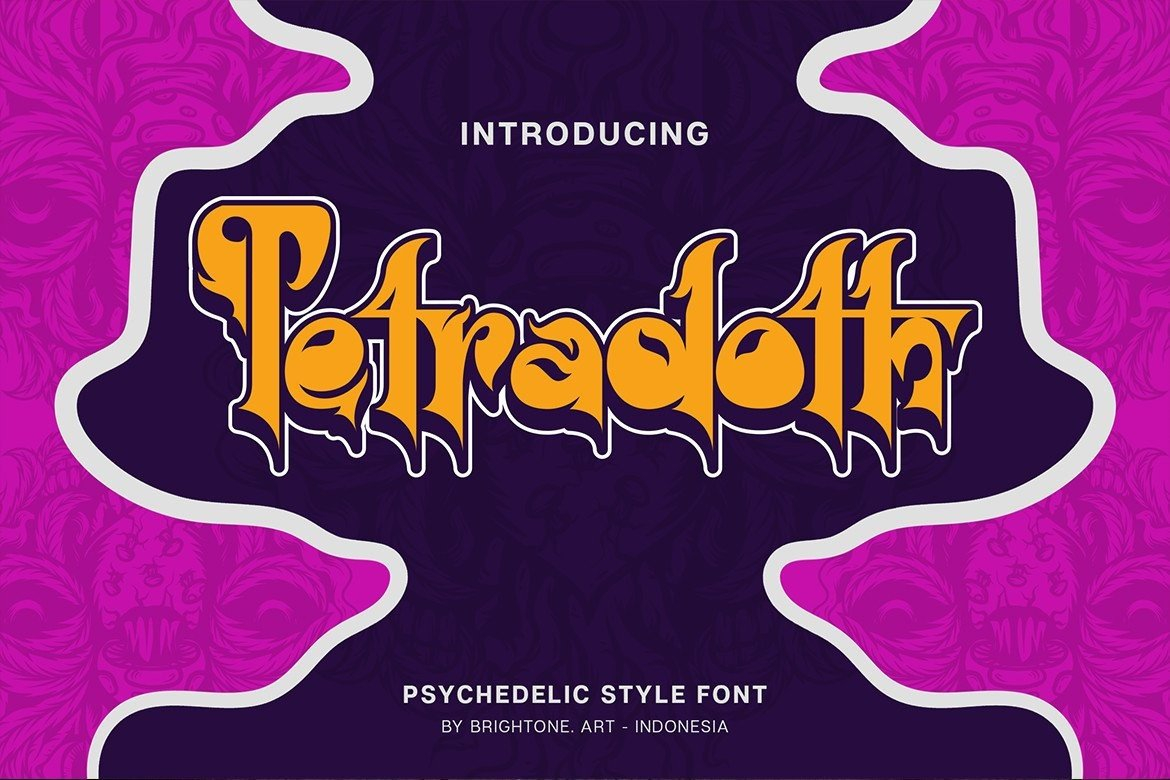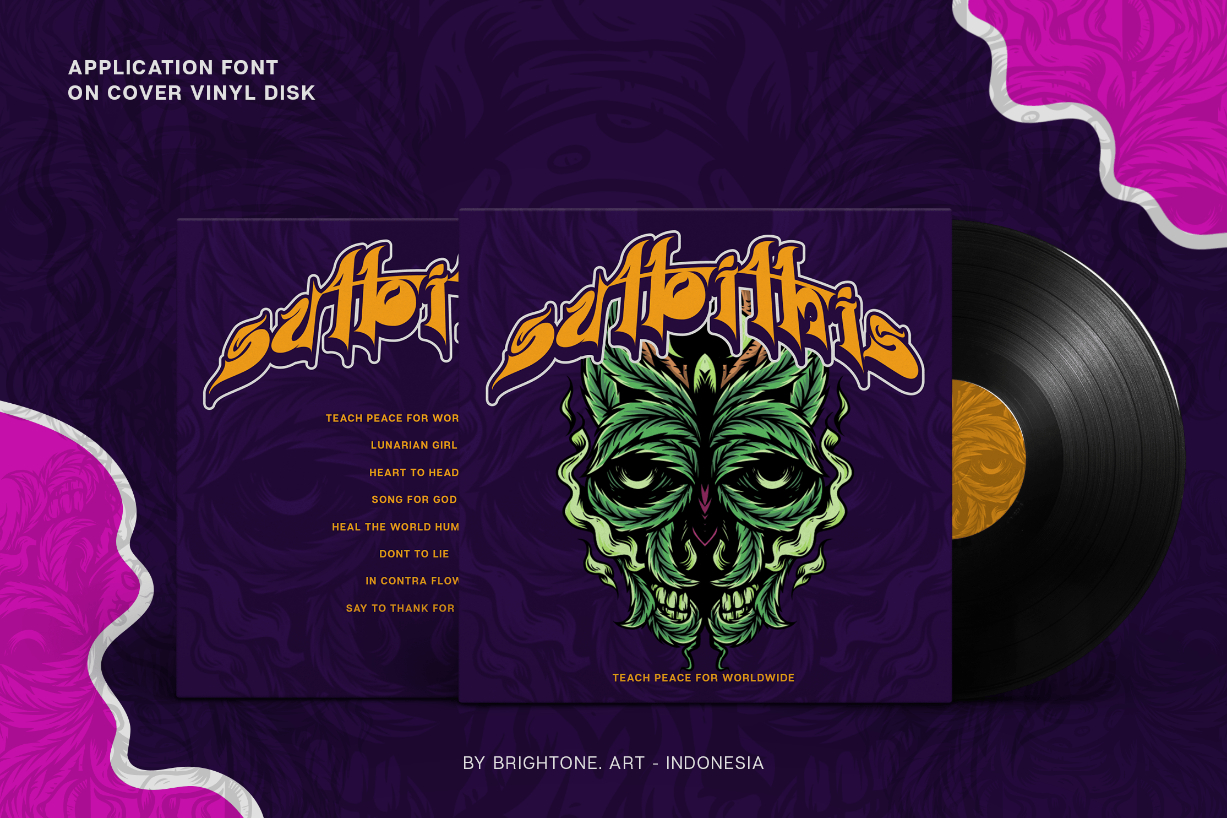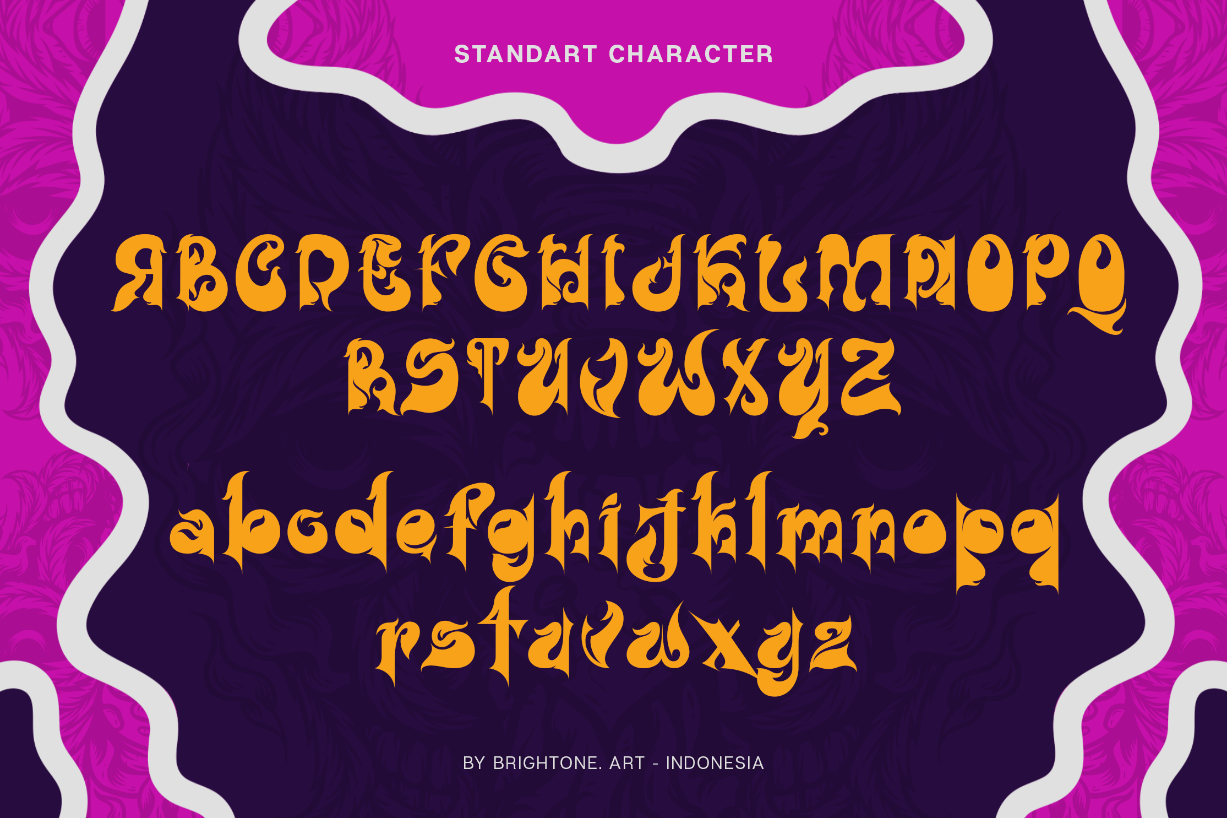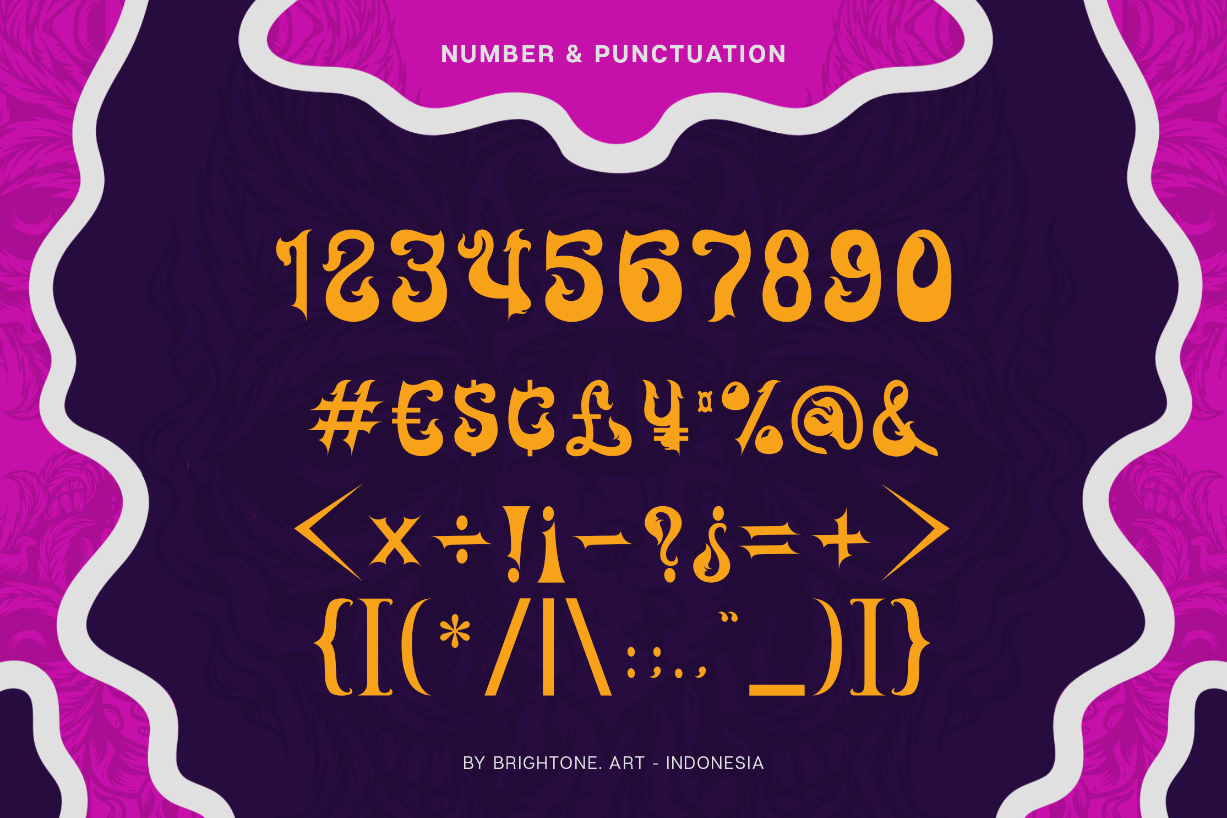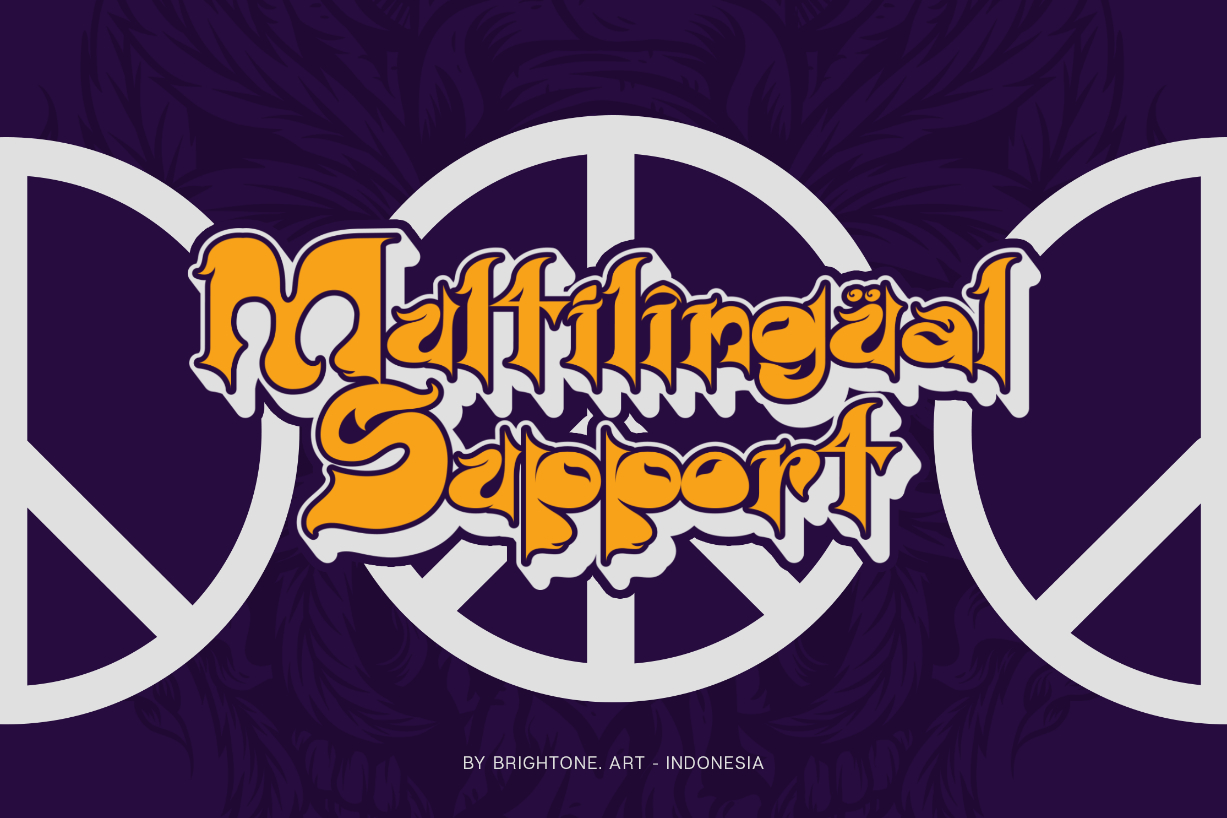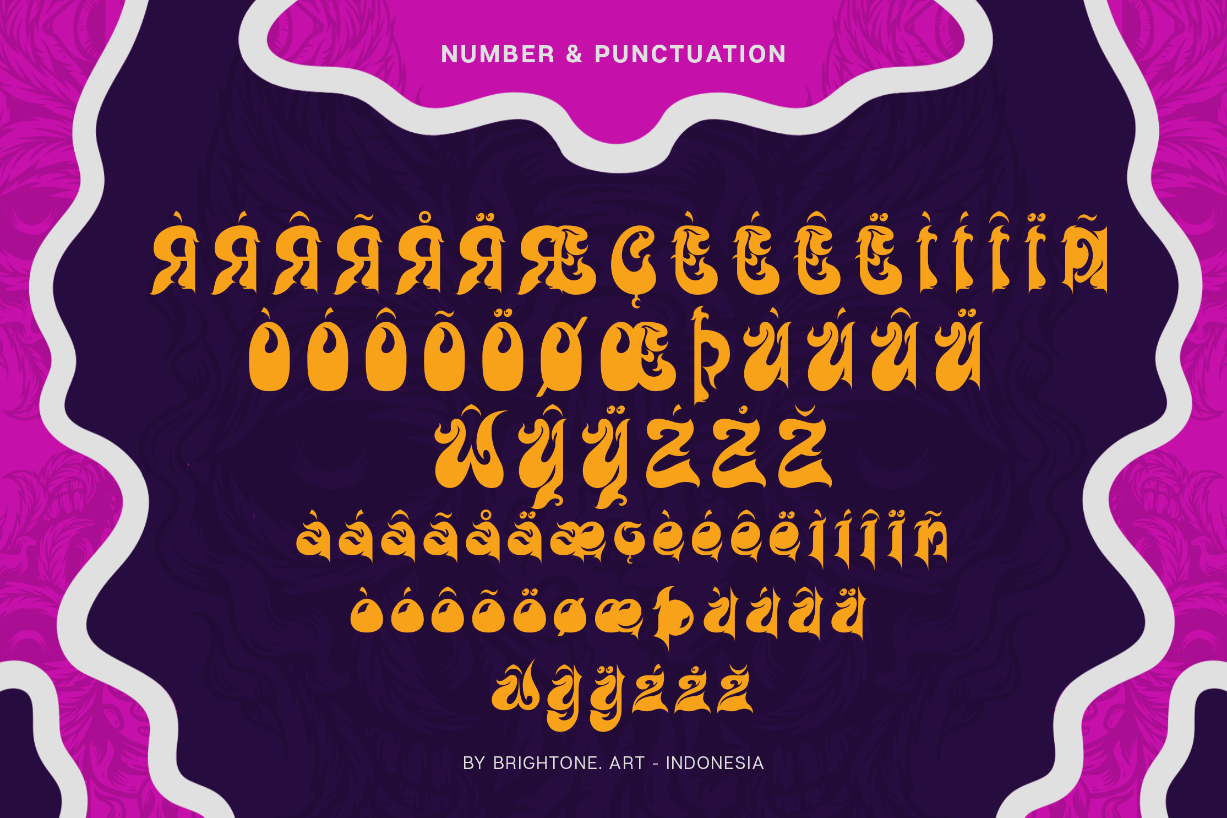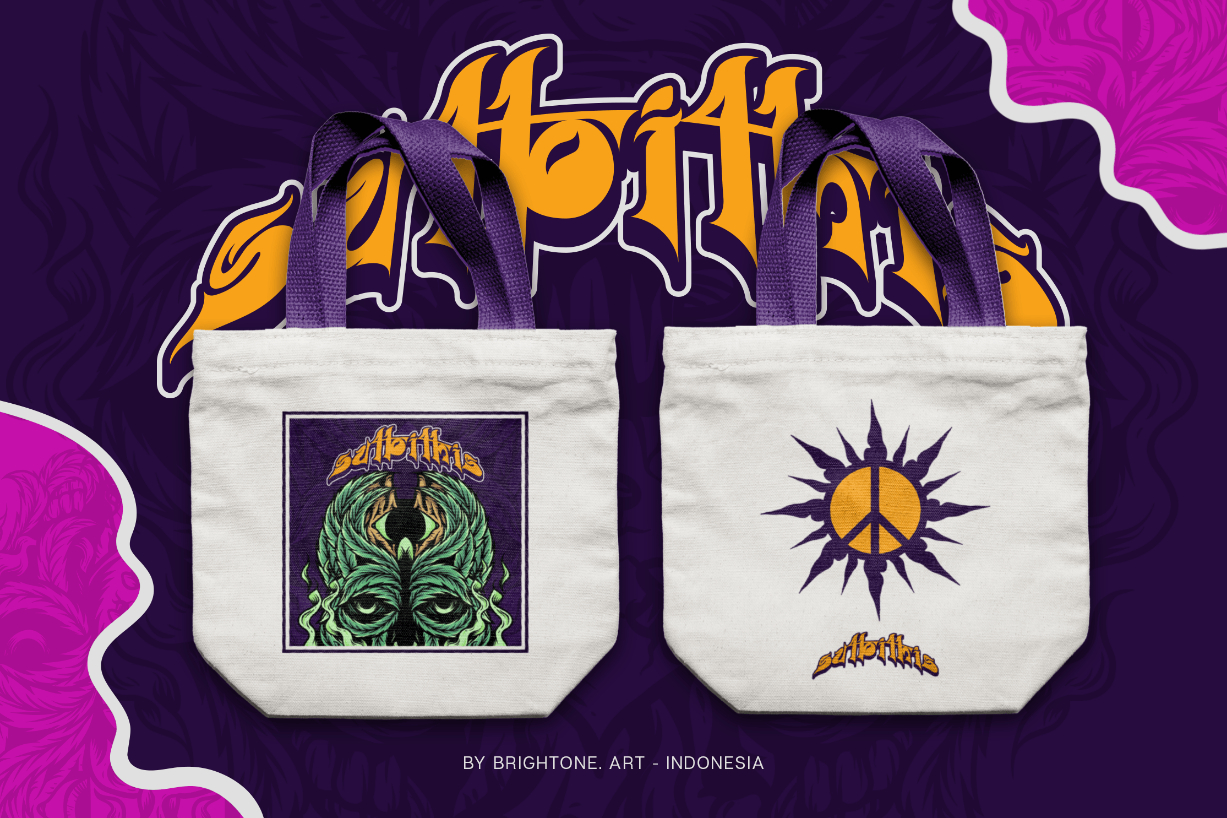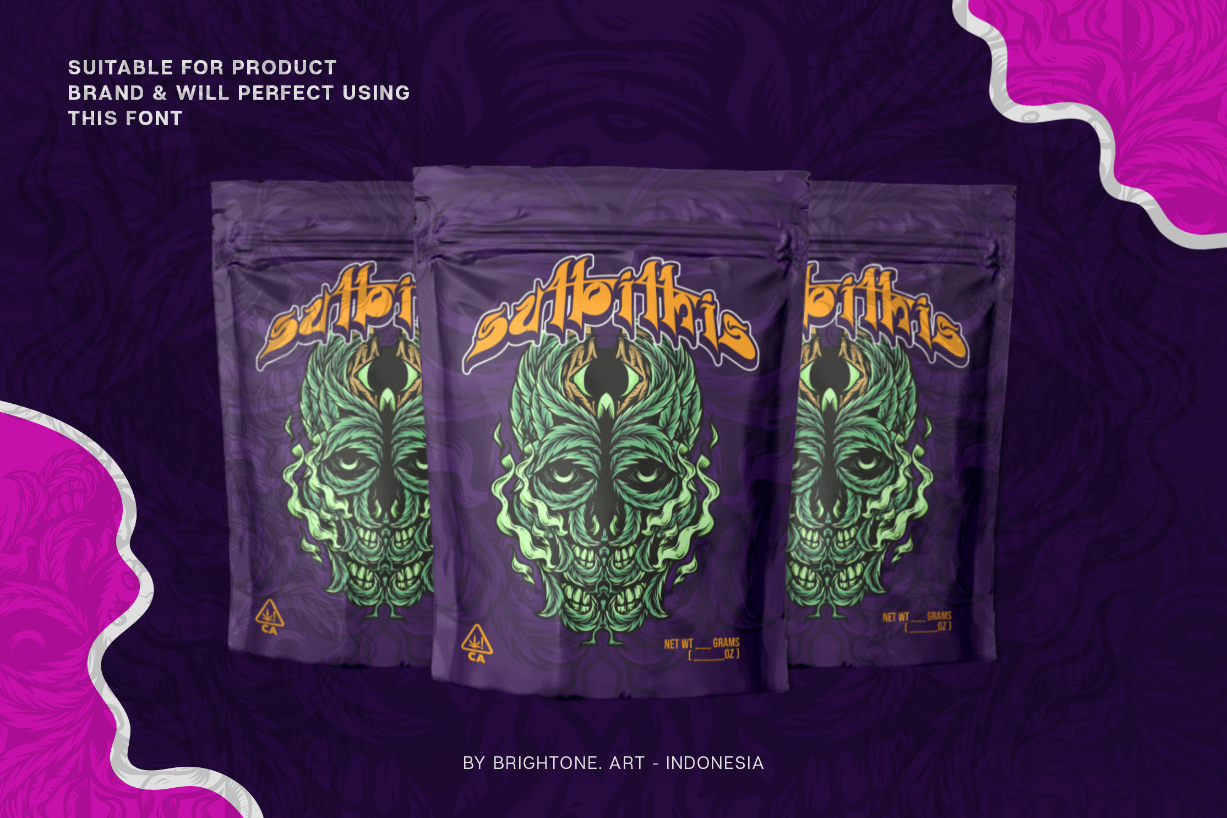
Tetradoth Font
About Tetradoth Font
Tetradoth is a Psychedelicblackletter font with good style.
Tetradoth is suitable to use for your logo lettering, logo, label, packaging, pouch bag sticker, branding, and many more creations.